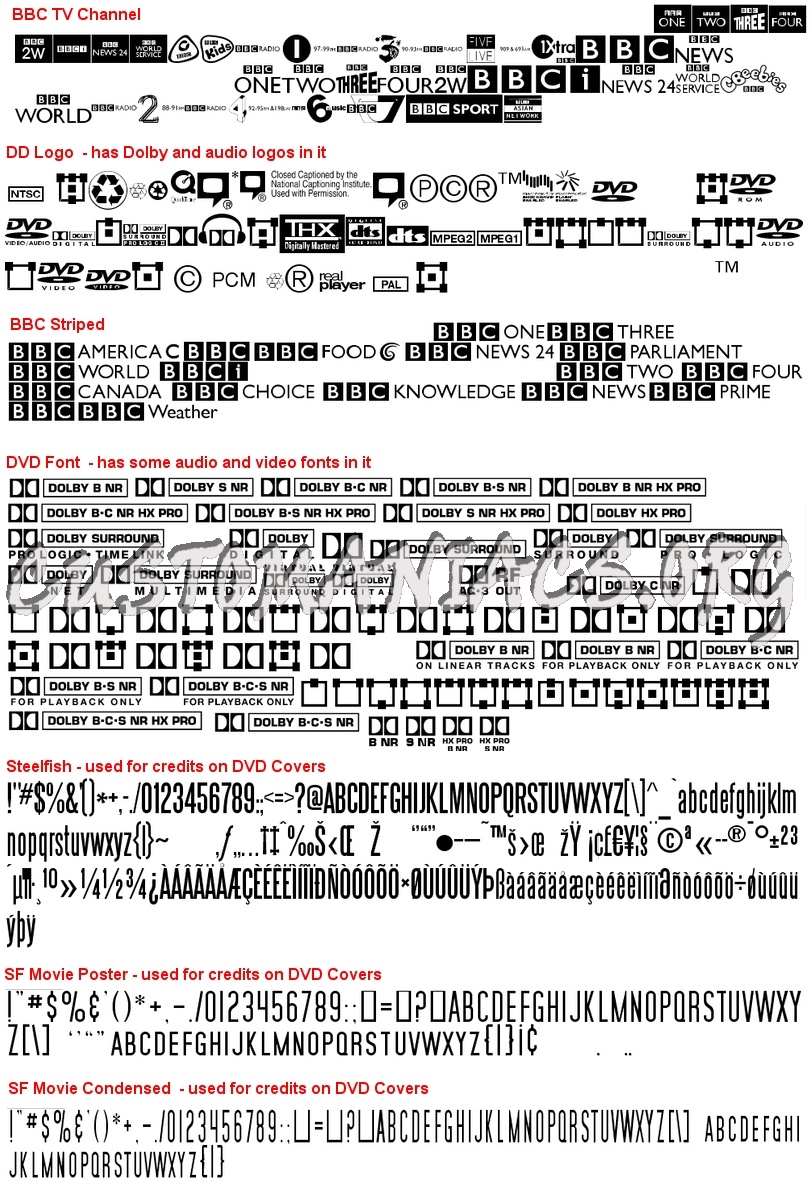
Some more useful fonts
Walt Disney Script Steelfish - used for credits on DVD Covers SF Movie Condensed - used for credits on DVD Covers SF Movie Poster - used for credits on DVD Covers DVD Font - has some audio and video fonts in it DD Logo - has Dolby and audio logos in it BBC TV Channel BBC Striped Attachment 90587 Attachment 90588 |